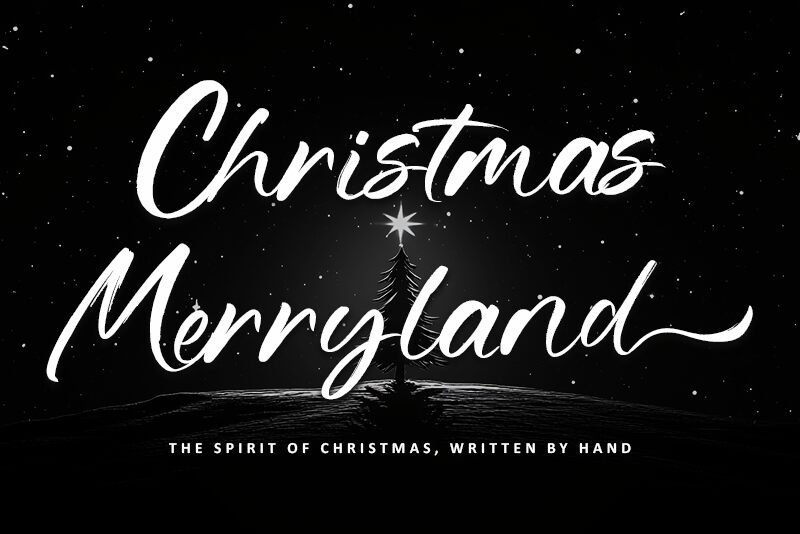
Christmas Merryland is a free brush font with a casual, friendly, and personalized character. Designed by Letterara, this expressive handwritten typeface is filled with a warm, festive touch. With a modern and approachable appeal, it evokes an energetic spirit that enlivens any visual project.
This font can be used in designing Christmas cards, invitations, gift tags, social media posts, headers, posters, logos, and more. Brand collateral, stationery, and other promotional materials will also benefit from the cheerful attitude it transmits.